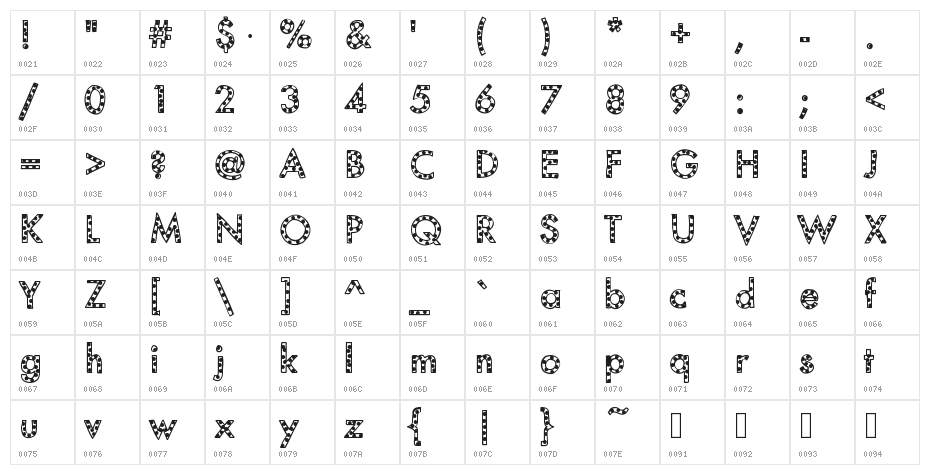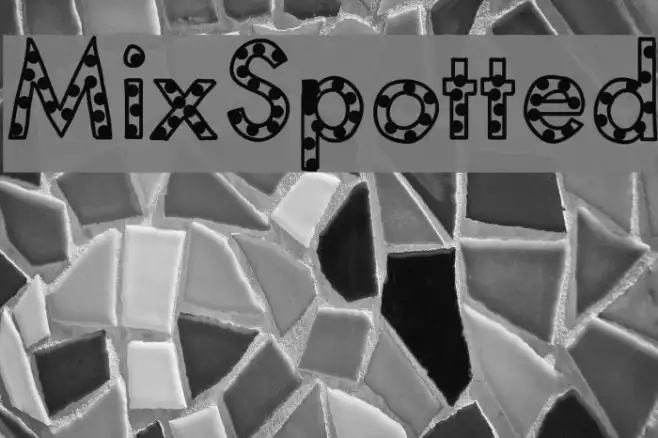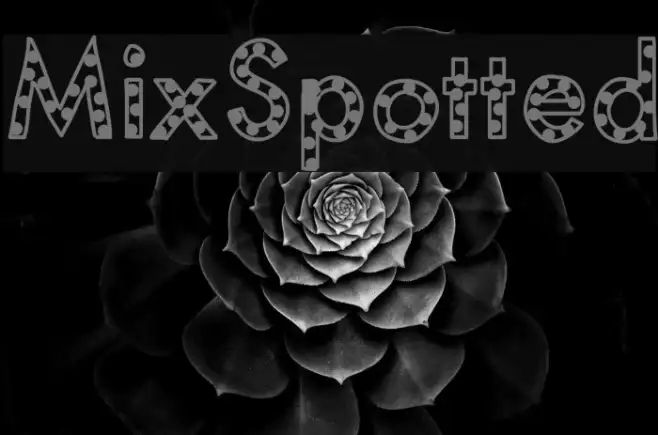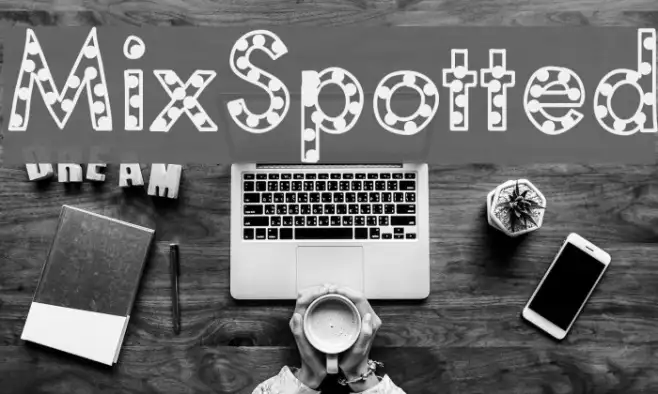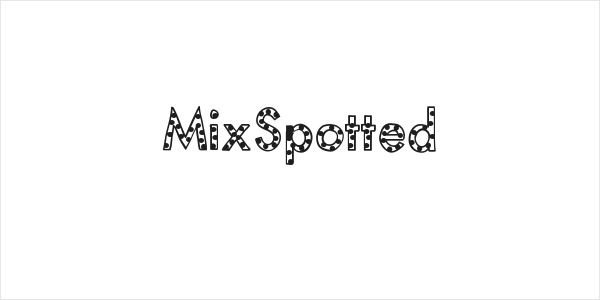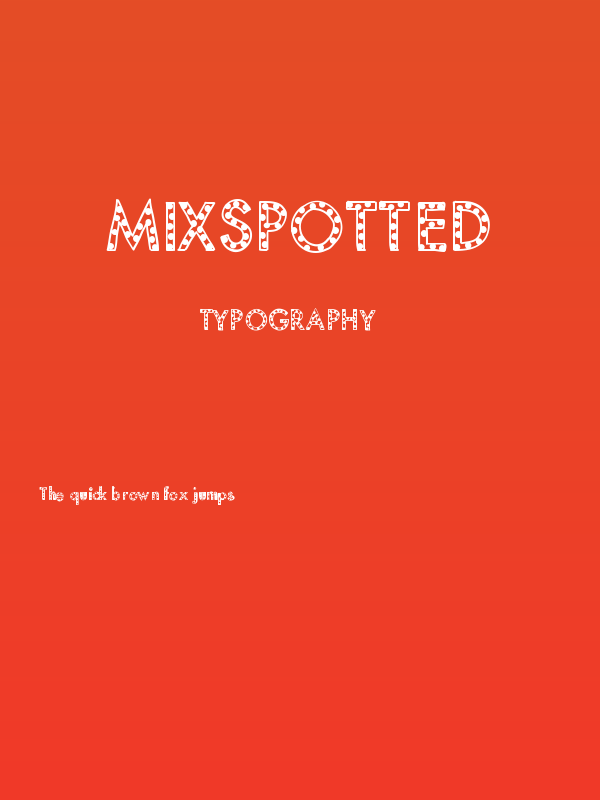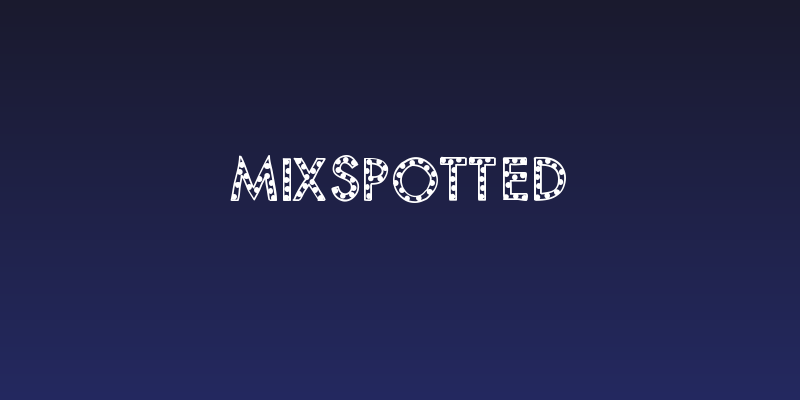
MixSpotted Font
MixSpotted Description
This playful and eye-catching font features a bold, decorative style with a unique spotted pattern inside each character. The uppercase and lowercase letters, along with numbers and special characters, are designed with a consistent dotted motif that adds a whimsical touch. The font's thick strokes and high contrast make it stand out, while the playful pattern adds a sense of fun and creativity. It's perfect for projects that require a lively and engaging typeface, such as children's books, party invitations, or playful branding.
| Overall Style | Playful, Decorative |
| Proposed Projects | Ideal for children's books, party invitations, playful branding, and creative posters. |